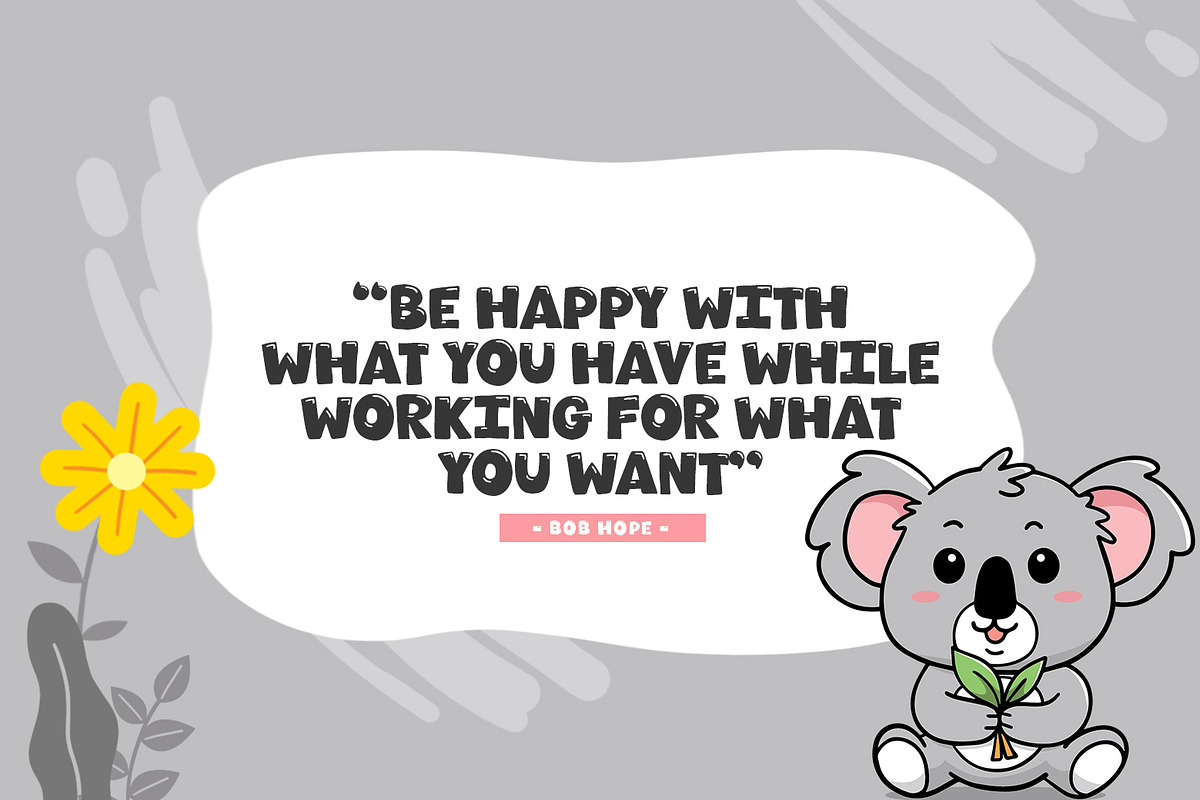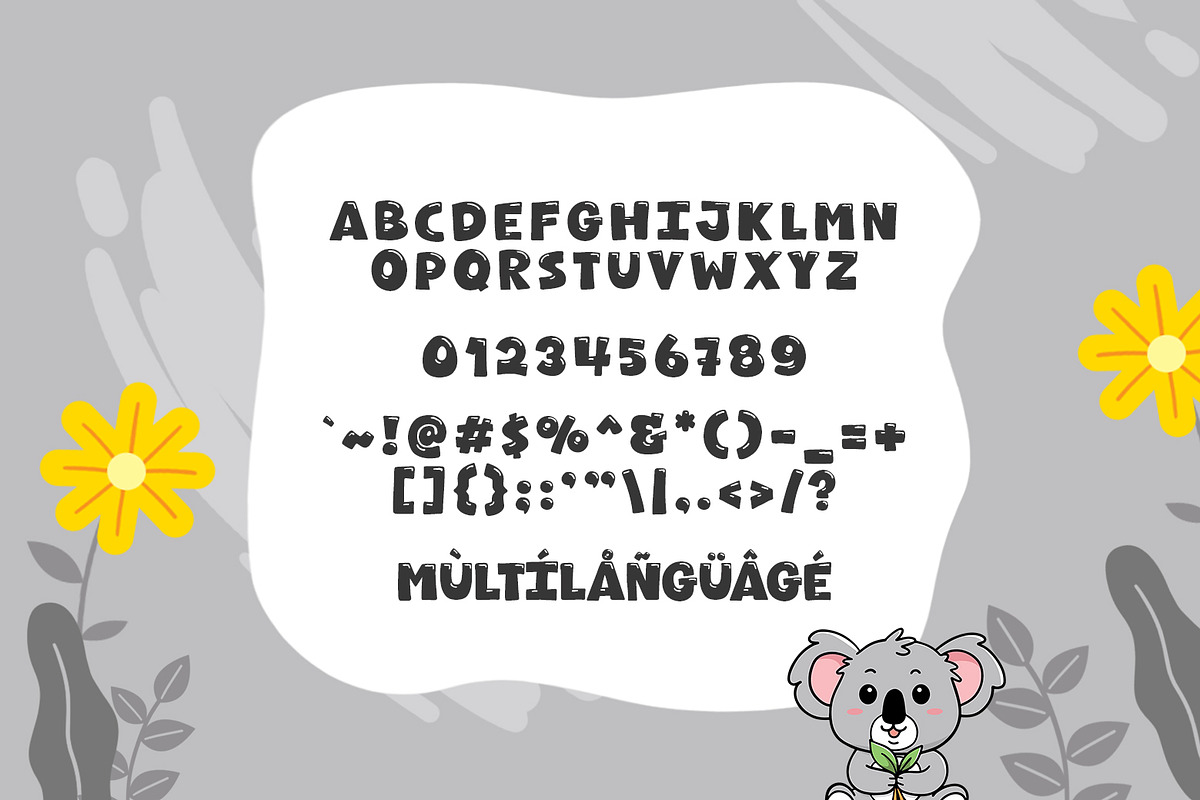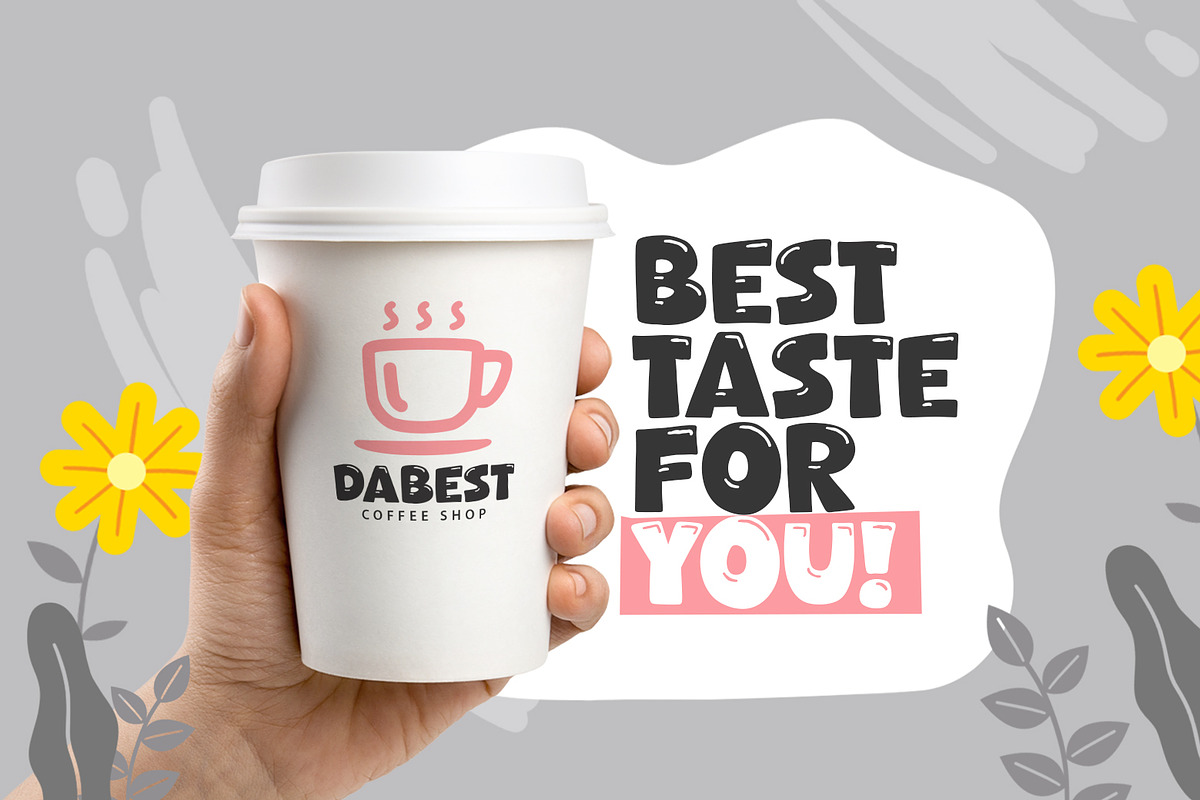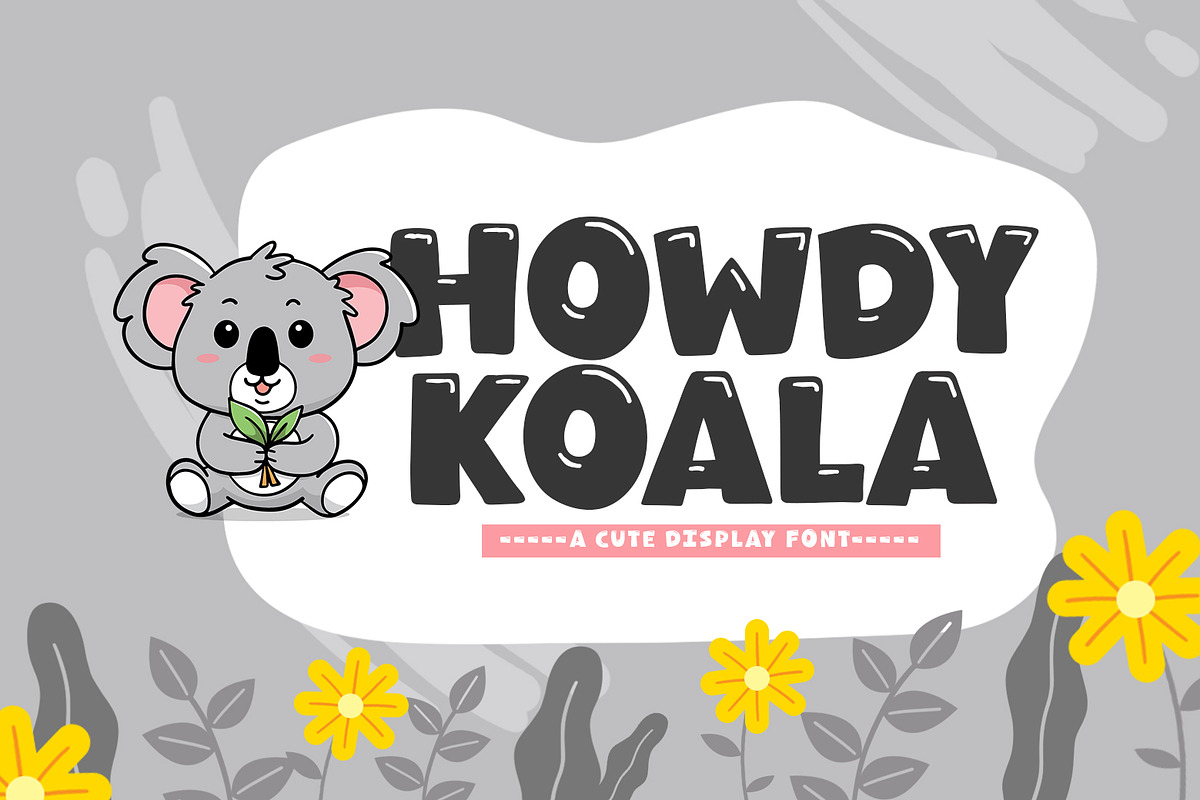
Howdy Koala
Introducing, Howdy Koala font a fun display typeface with cheerful theme for your fun project. Howdy Koala font suitable for logo, branding, greeting card, poster and any design that you create.